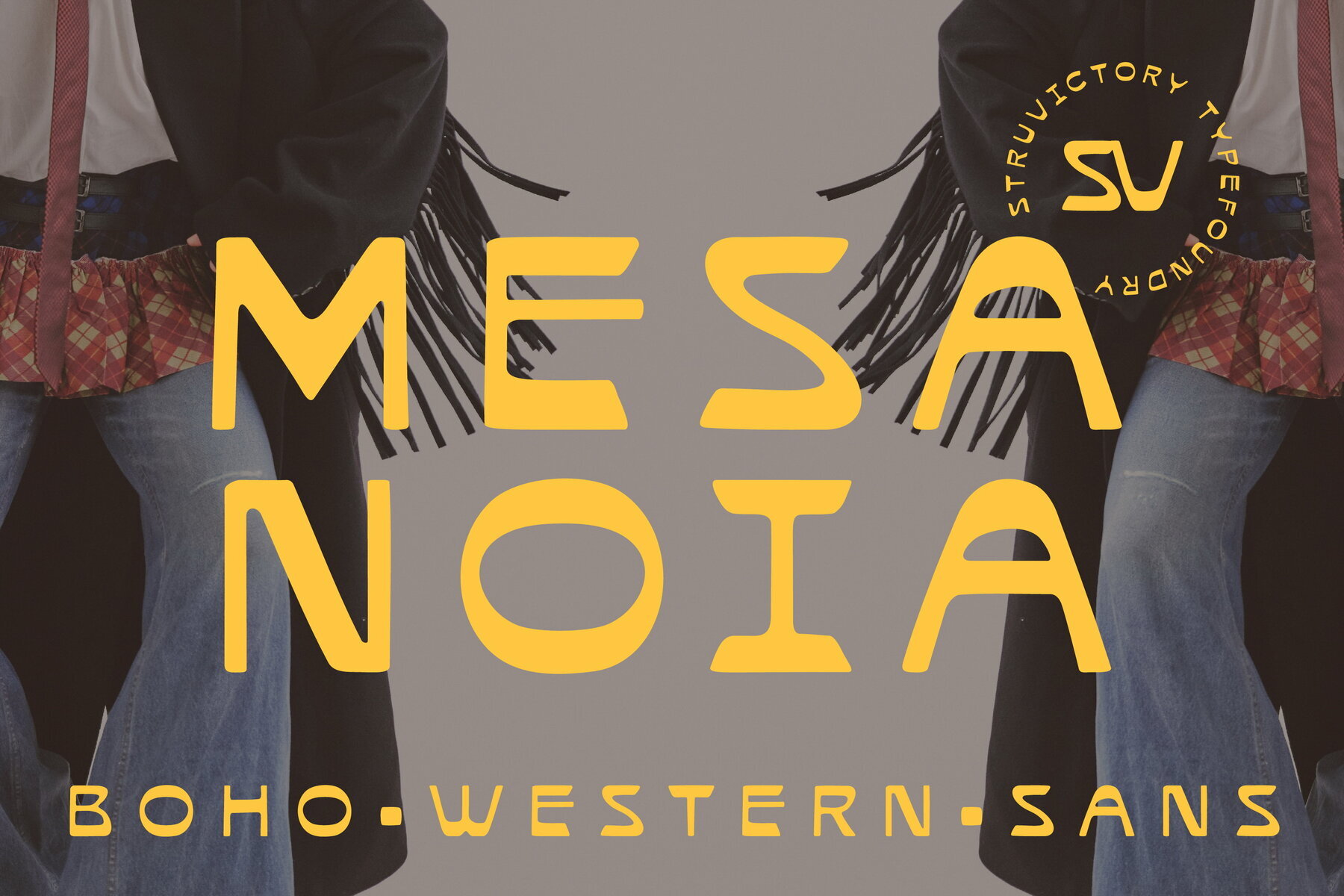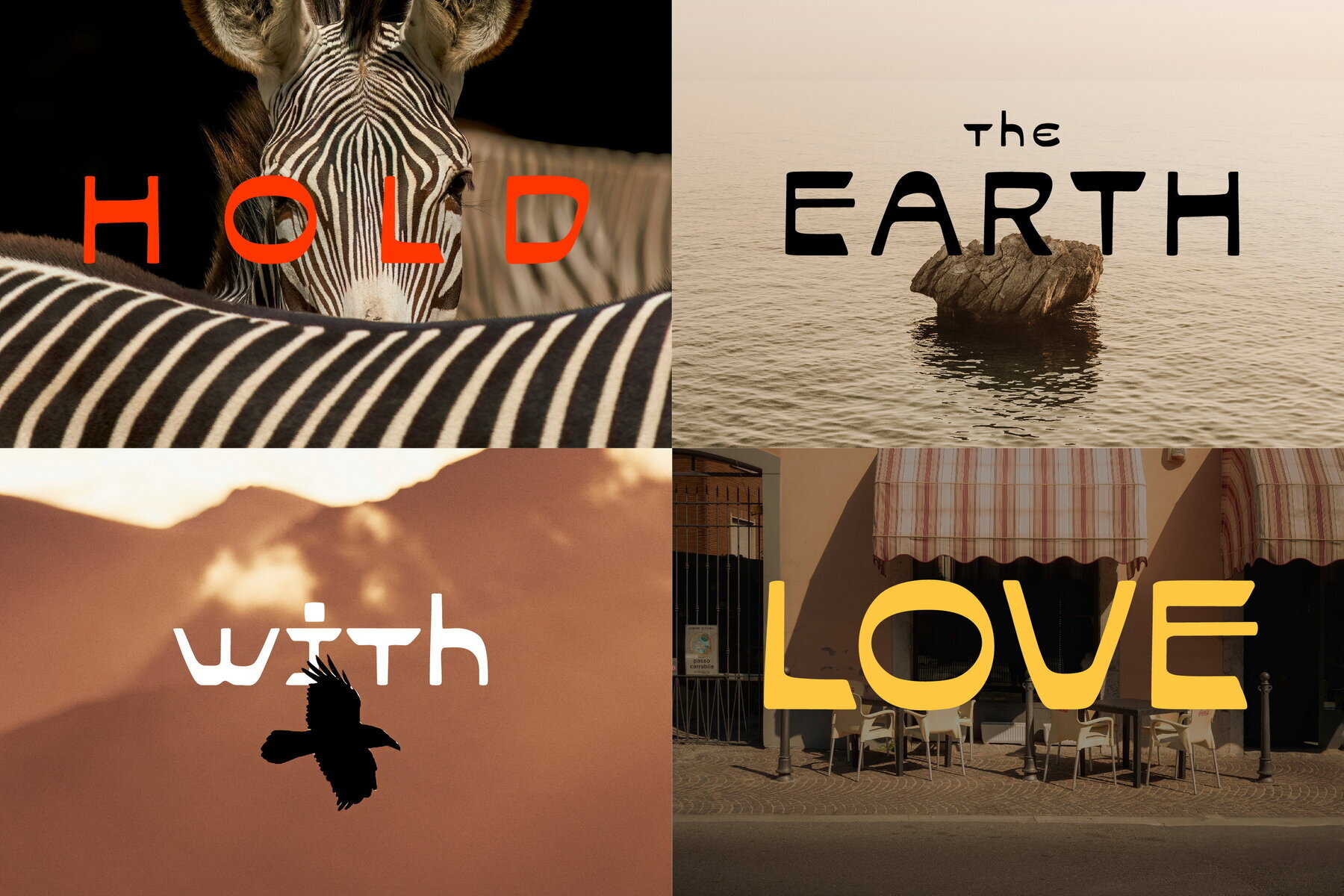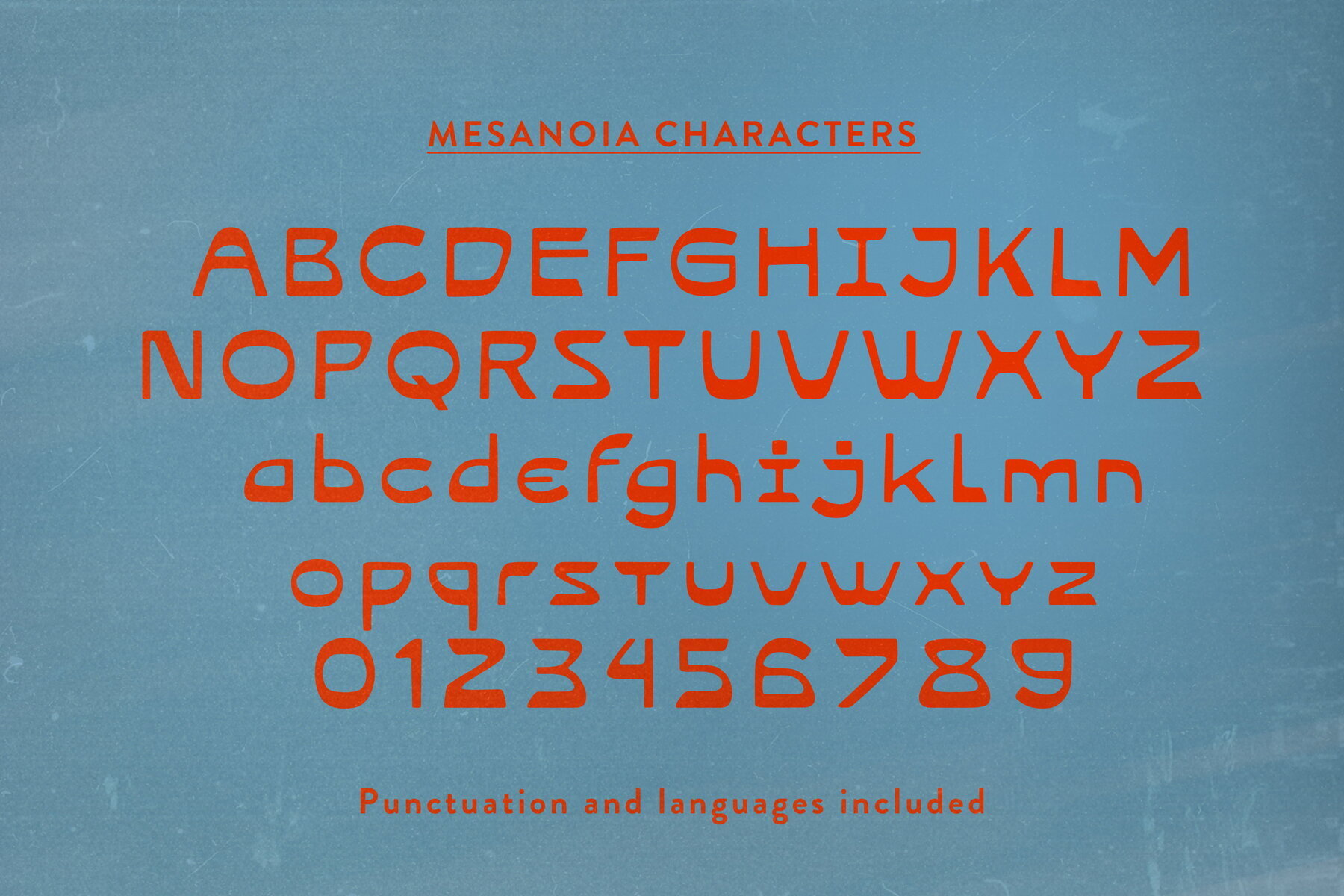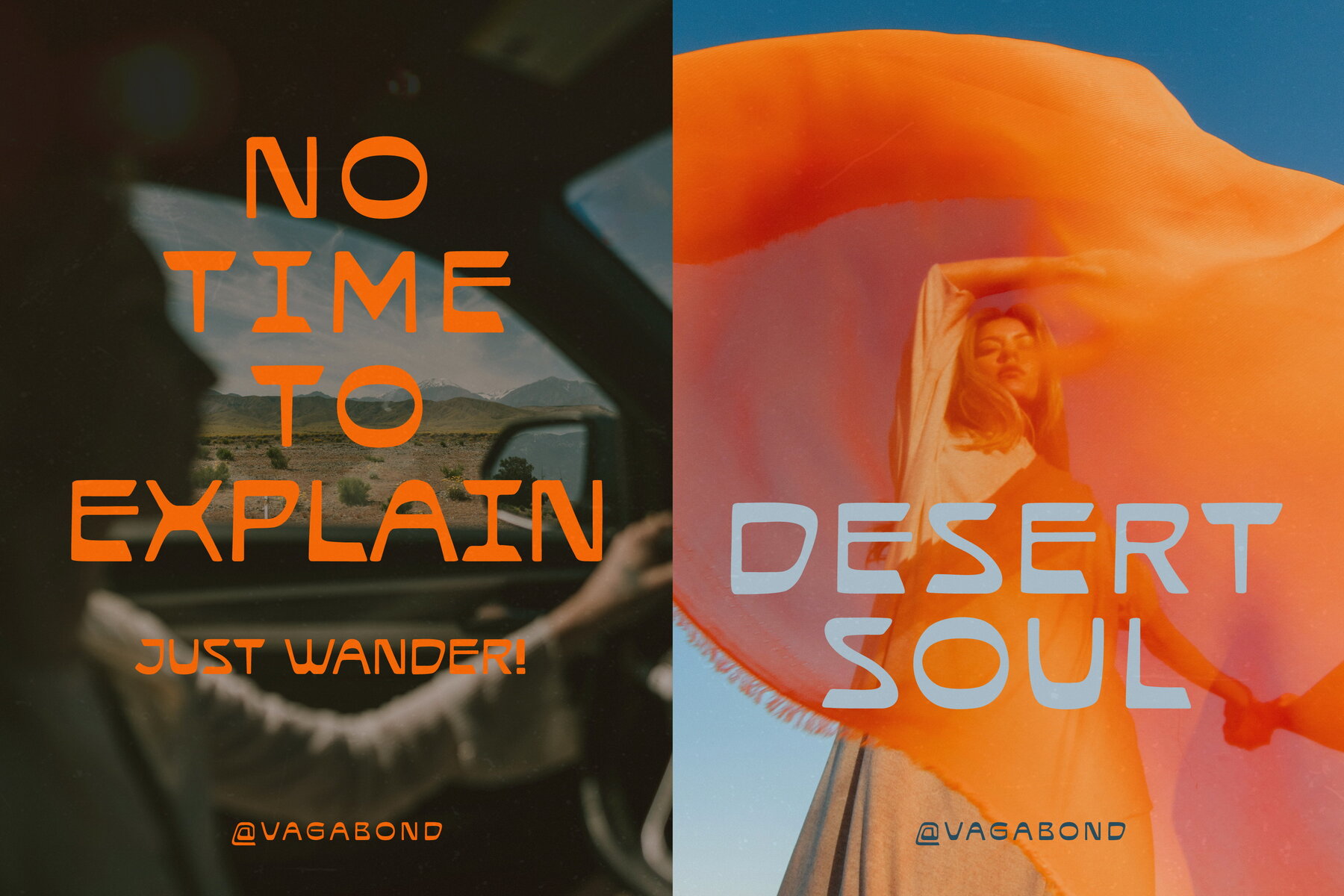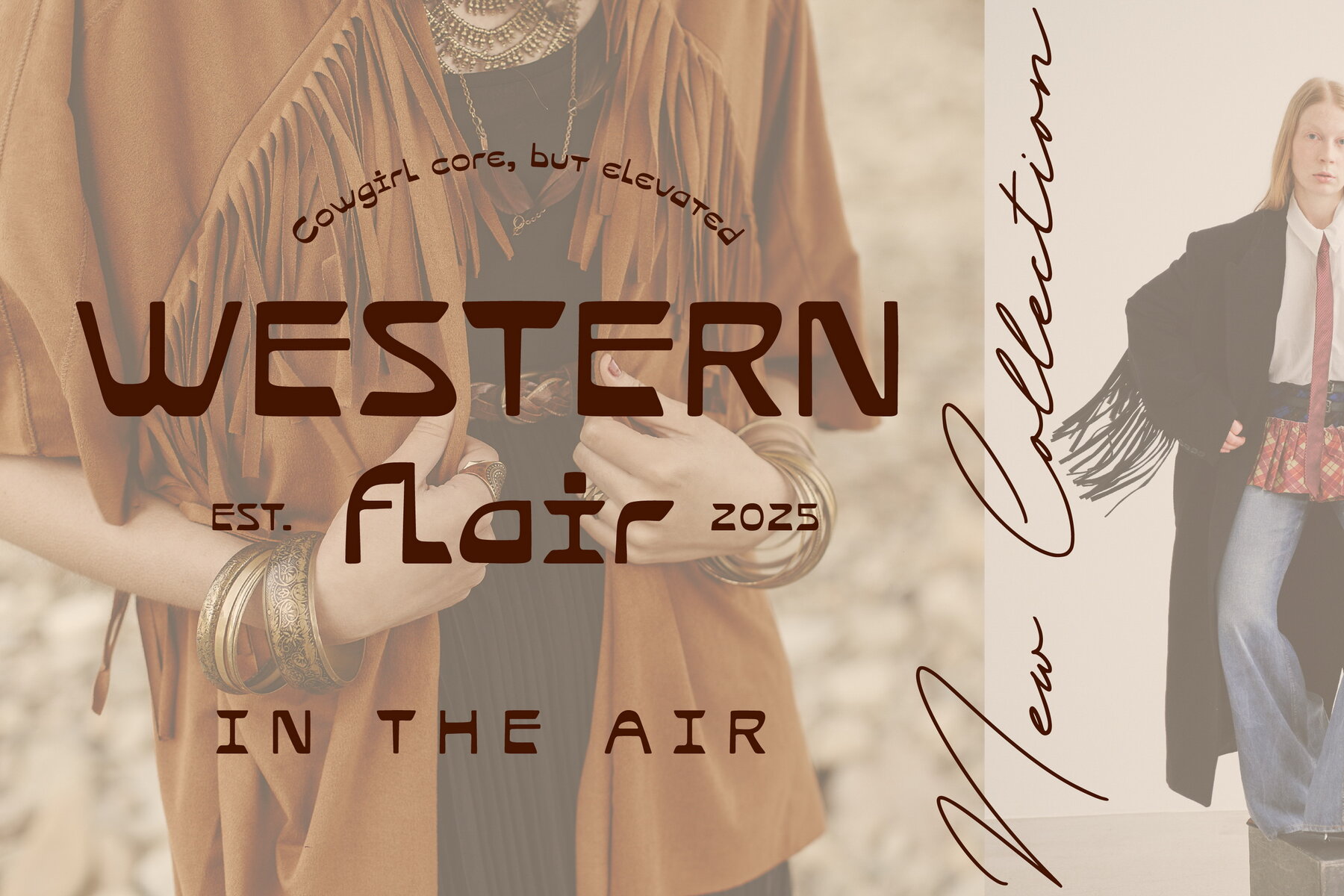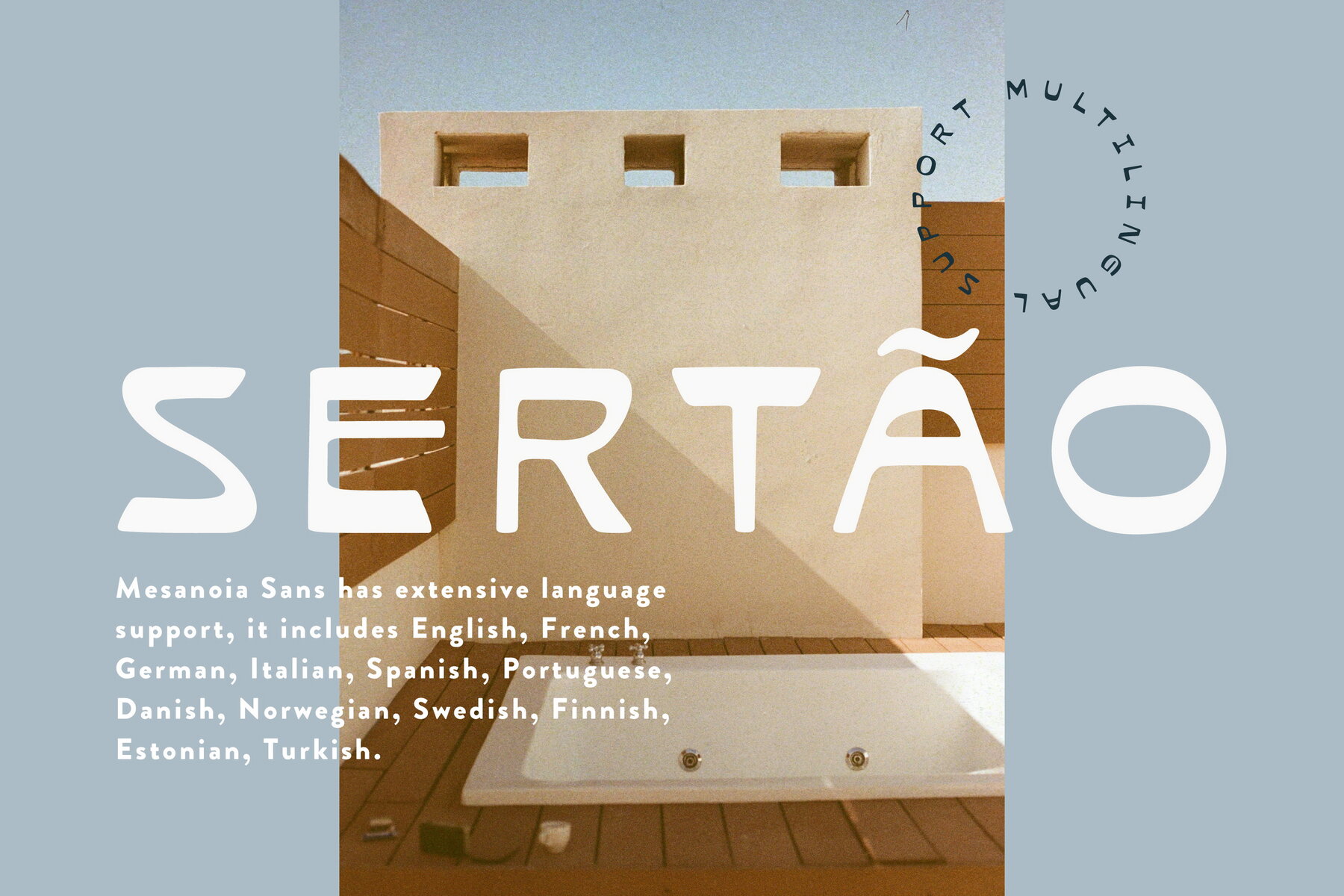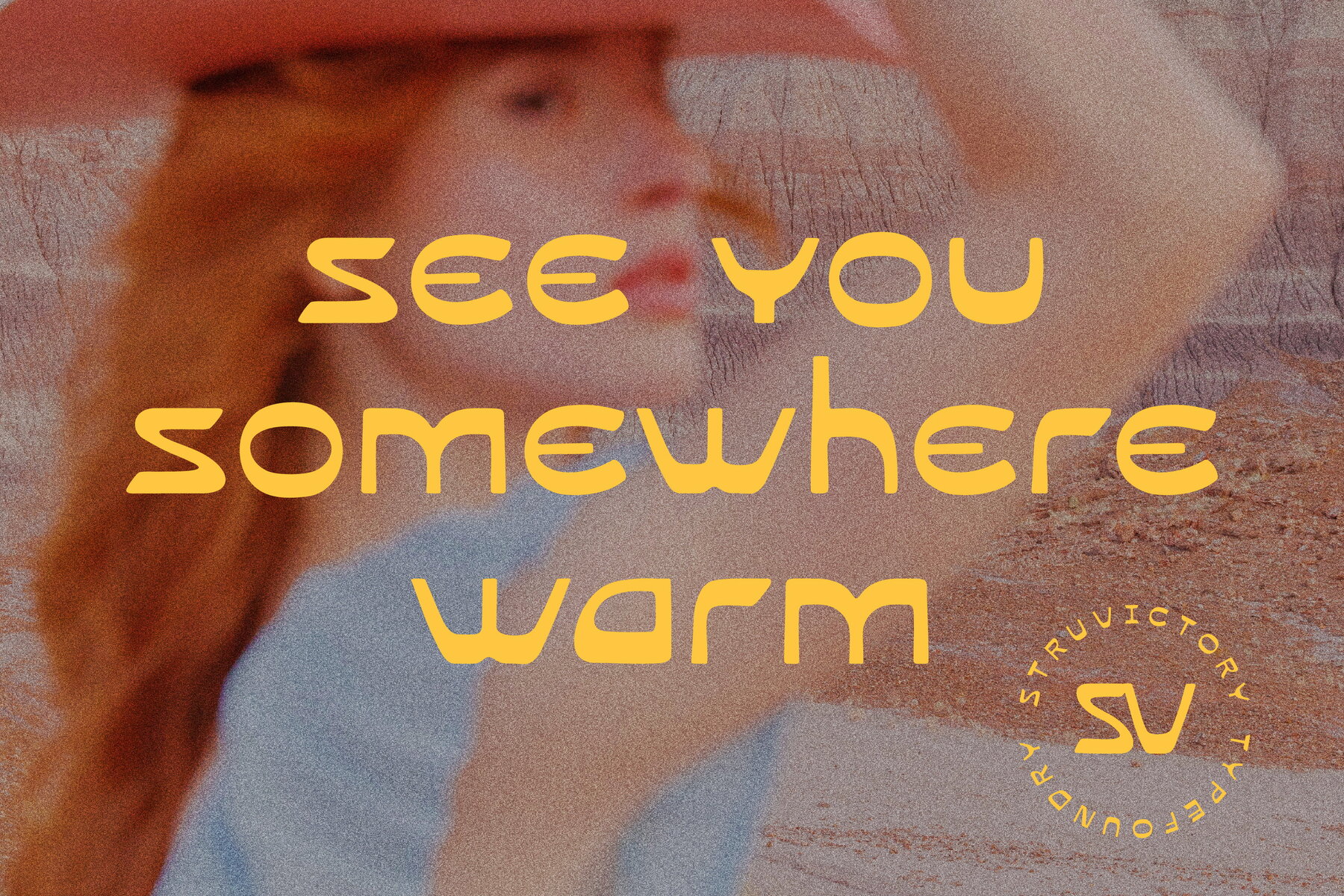
Mesanoia Sans Font
Mesanoia Western
Mesanoia emerges as a display sans with bold character and intricate features, embodying influences from the vast open landscapes and nomadic ethos of the West. This font alludes to a bygone era while maintaining a striking modern flair, courtesy of its engaging curves and distinctive cuts. Mesanoia is ideal for projects requiring a touch of organic sophistication, effortlessly suitable for branding, apparel, travel publications, and creative packaging.Mesanoia: Free-Spirited Display Sans
Mesanoia offers a unique blend of retro aesthetics and modern charm to captivate and convey your message eloquently.